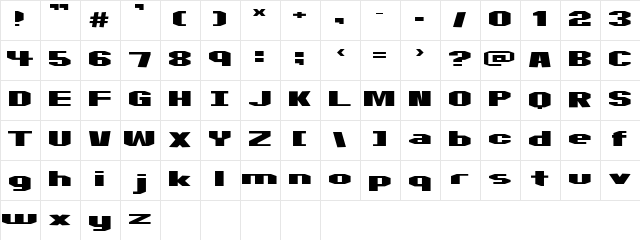
Motorcycle Emptiness Regular
Design Context for Motorcycle Emptiness Typeface
Motorcycle Emptiness is a composed and adaptable typeface that performs quietly and consistently across a wide range of design contexts.